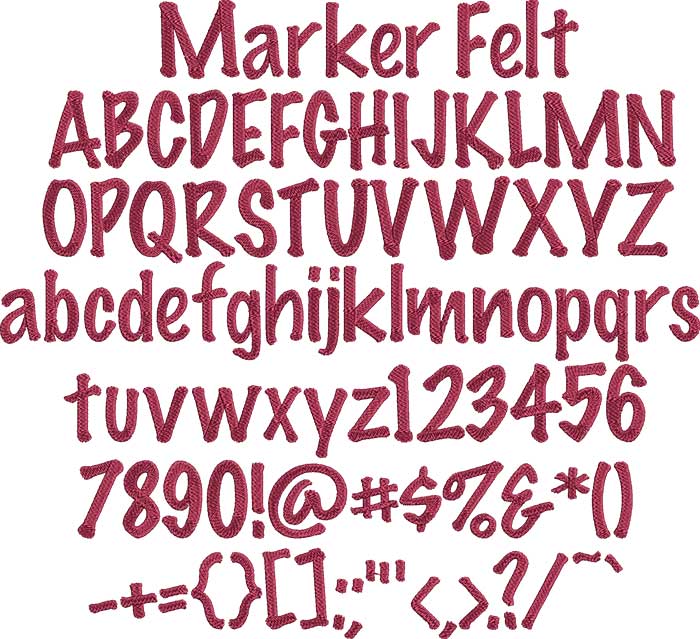
BX Embroidery Font: Marker Felt
BX Embroidery Font: Marker Felt is a condensed, handwritten machine embroidery font that includes A-Z, a-z, 0-9 and punctuation; 4 sizes.
BX Embroidery Font: Marker Felt is a condensed, handwritten machine embroidery font that includes A-Z, a-z, 0-9 and the following punctuation: ~`!@#$%^&*()-+={}[]|:;”‘<>,.?/ (93 total characters).
Each character in this alphabet is individually manually digitized; we do not use a TrueType to Stitches conversion utility to create our fonts. Additionally, stitch attributes such as stitch type, density, compensation, and underlay are optimized for each size available. Choose the size closest to what you need. Shrinking the smallest size is not recommended.
Our fonts were manually digitized; we do not use a TrueType to Stitches conversion utility to create our fonts. Plus, stitch attributes such as density, compensation, and underlay are optimized for each size available.